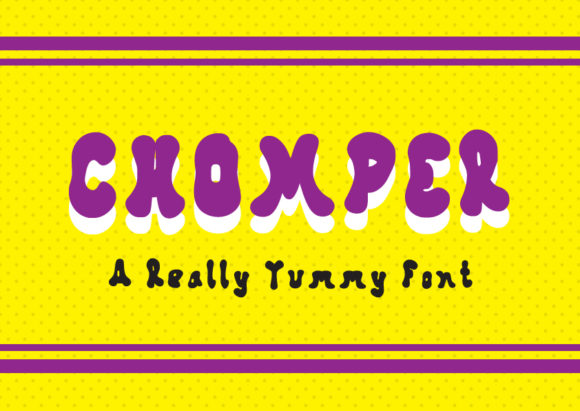
Introducing Chomper Font: The Bold and Playful Display Font You Need
Are you tired of using the same old fonts for your crafting projects? Do you want to add a touch of personality and whimsy to your designs? Look no further than Chomper Font, a bold and playful display font that’s sure to brighten up any project. In this article, we’ll take a closer look at Chomper Font, its unique features, and how you can use it to take your crafting projects to the next level.
What is Chomper Font?
Chomper Font is a bold and playful display font designed to make a statement. Its unique look is perfect for crafters, designers, and anyone looking to add a touch of fun and personality to their projects. Whether you’re working on a DIY craft, a scrapbooking project, or a digital design, Chomper Font is the perfect choice.
Unique Features of Chomper Font
So, what sets Chomper Font apart from other fonts? Here are a few of its unique features:
• Bold and Playful: Chomper Font is a bold and playful font that’s designed to grab attention. Its chunky letters and fun design make it perfect for headlines, titles, and other display text.
• Unique Look: Chomper Font has a one-of-a-kind design that’s sure to stand out from the crowd. Its quirky letters and fun shapes make it perfect for adding a touch of personality to your projects.
• Versatile: Despite its bold and playful design, Chomper Font is surprisingly versatile. It can be used for a wide range of projects, from DIY crafts to digital designs.
How to Use Chomper Font
Now that we’ve covered the basics of Chomper Font, let’s talk about how to use it. Here are a few ideas to get you started:
• Crafting Projects: Chomper Font is perfect for a wide range of crafting projects, from scrapbooking to card making. Use it to add a bold and playful touch to your titles, headings, and other display text.
• Digital Designs: Chomper Font is also great for digital designs, such as social media graphics, blog posts, and website headers. Its bold and playful design is sure to grab attention and add a touch of personality to your designs.
• DIY Projects: If you’re a DIY enthusiast, Chomper Font is a great choice for your project titles, headings, and other display text. Use it to add a fun and playful touch to your projects.
Tips for Using Chomper Font
Here are a few tips for using Chomper Font:
• Use it Sparingly: While Chomper Font is bold and playful, it can be overwhelming if used too much. Use it sparingly to add a touch of personality to your projects.
• Pair it with Other Fonts: Chomper Font pairs well with other fonts, such as sans-serif fonts and script fonts. Experiment with different font combinations to find the perfect look for your project.
• Experiment with Colors: Chomper Font looks great in a wide range of colors, from bright and bold to pastel and soft. Experiment with different colors to find the perfect look for your project.
Font Name Chomper Font
Author GraphicsBam Fonts
In conclusion, Chomper Font is a bold and playful display font that’s perfect for crafters, designers, and anyone looking to add a touch of personality to their projects. Its unique look and versatile design make it perfect for a wide range of projects, from DIY crafts to digital designs. With its bold and playful design, Chomper Font is sure to brighten up any project and add a touch of fun and whimsy. So why not give it a try and see what you can create?